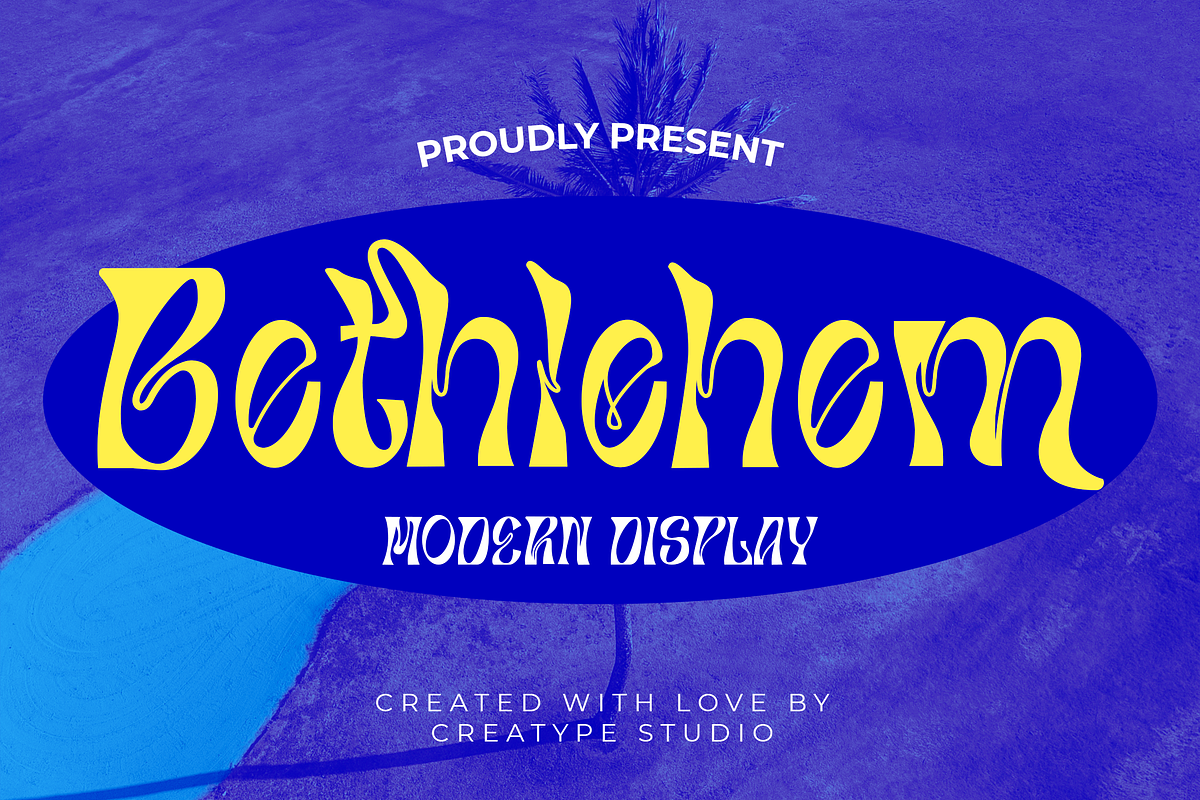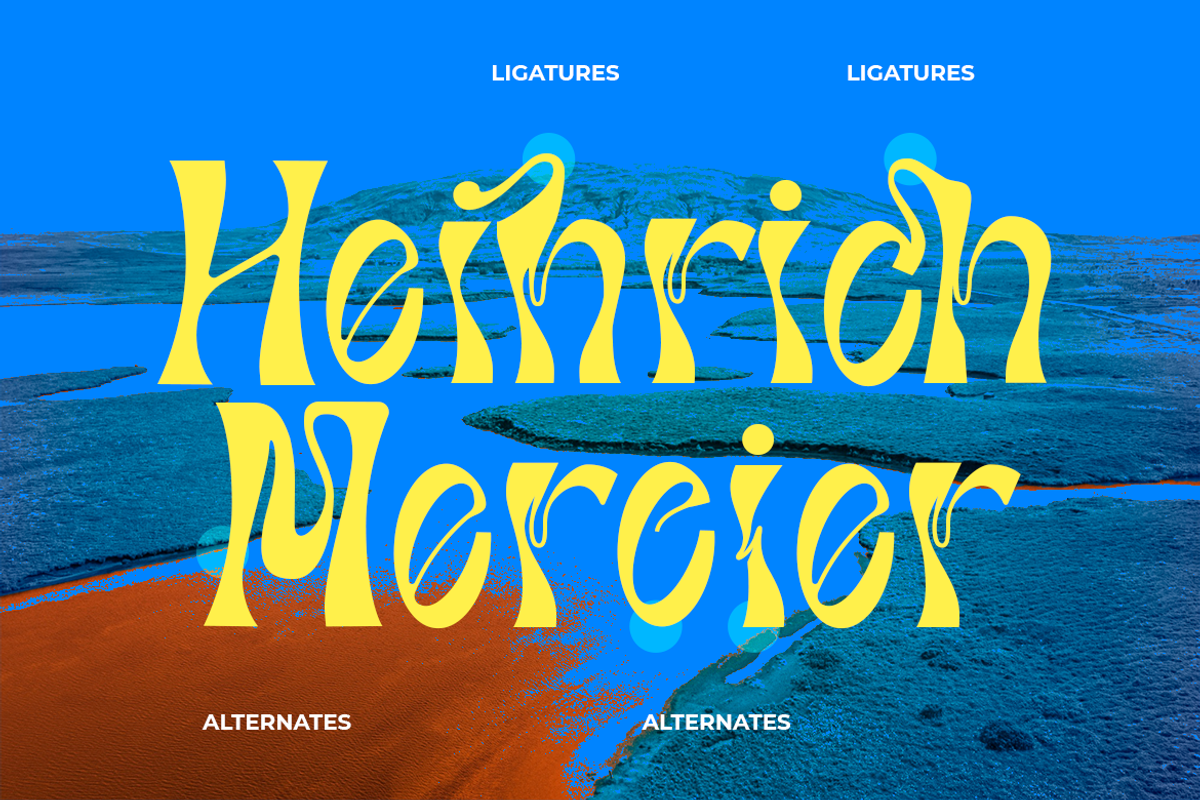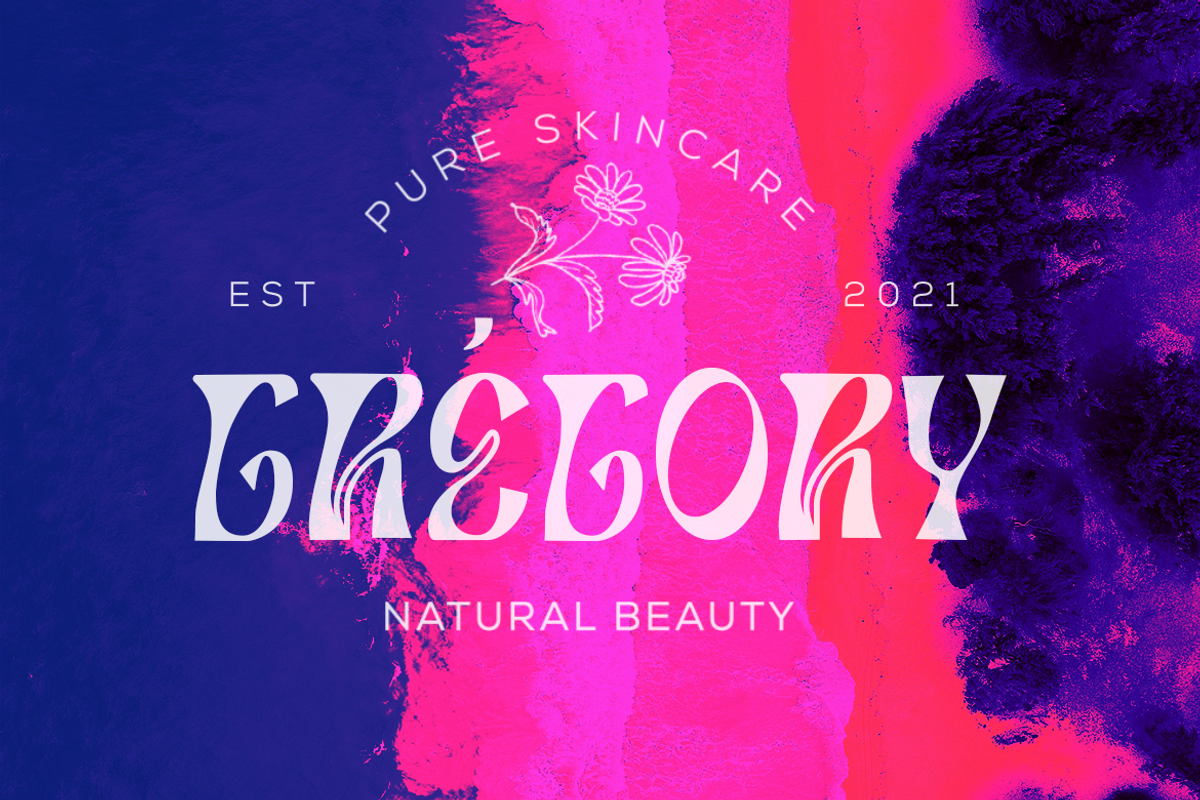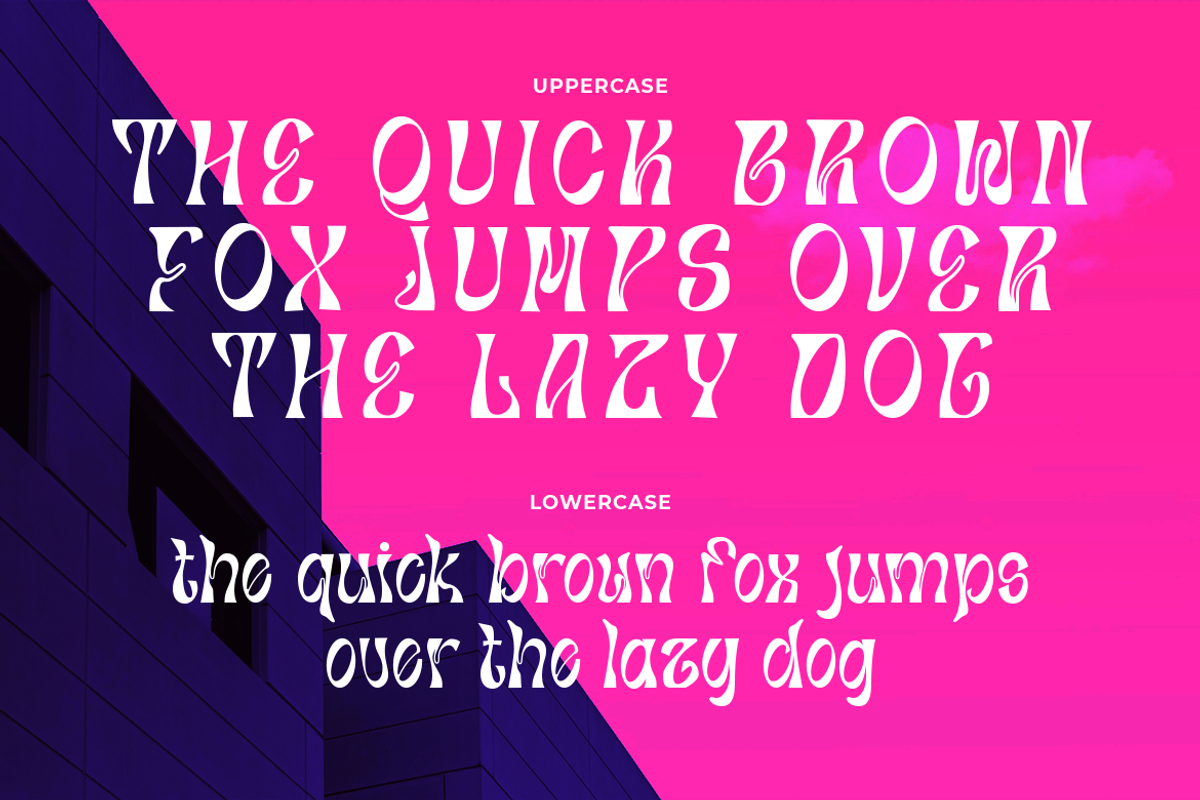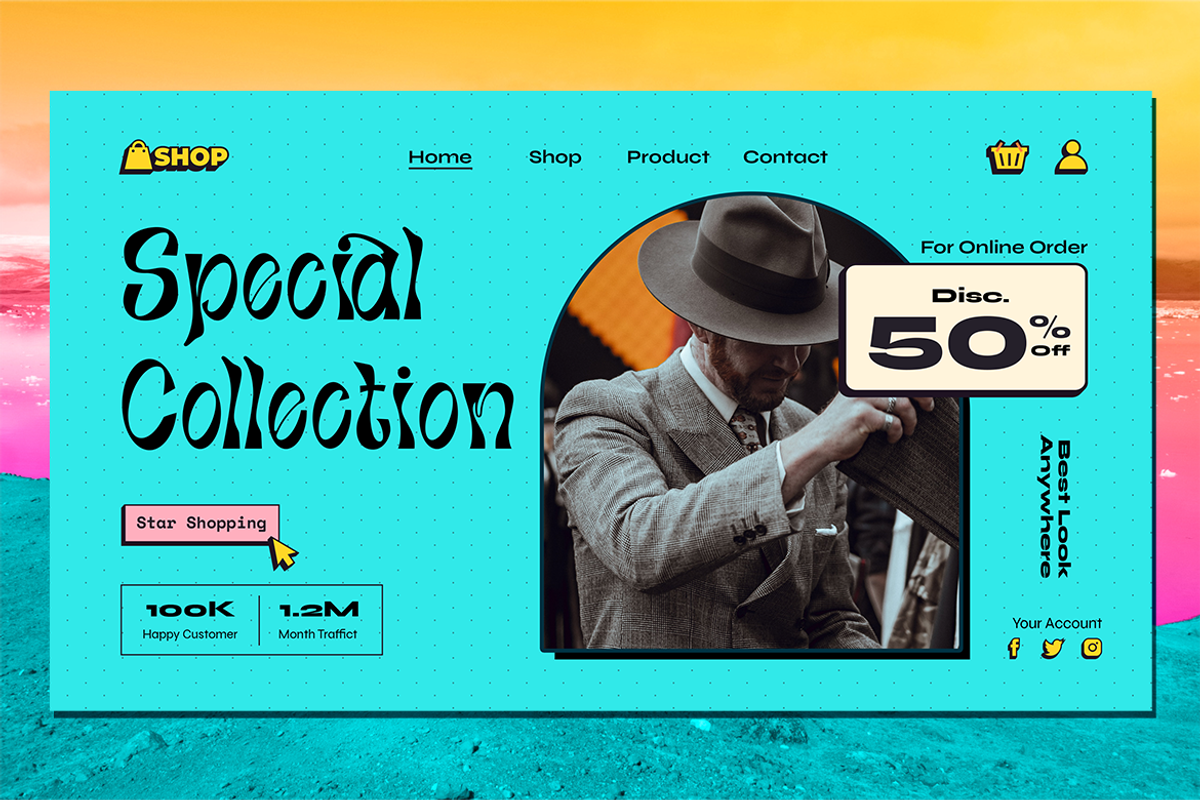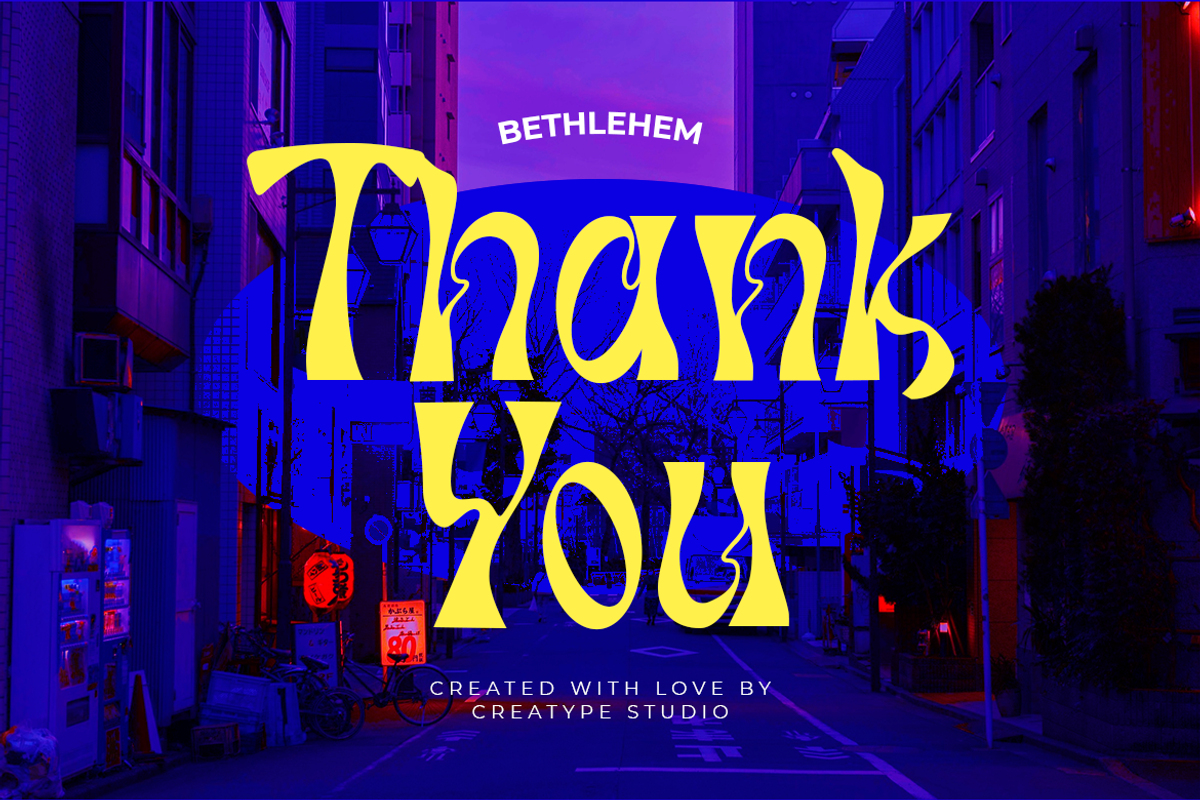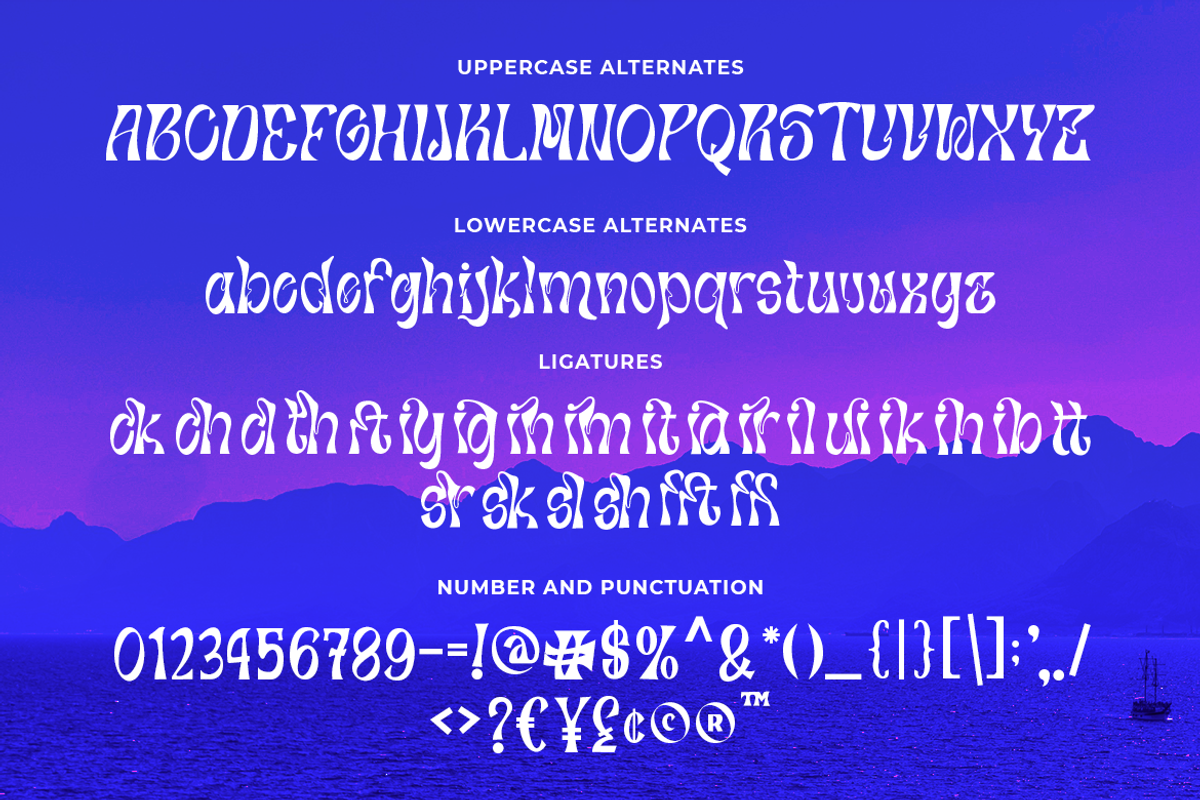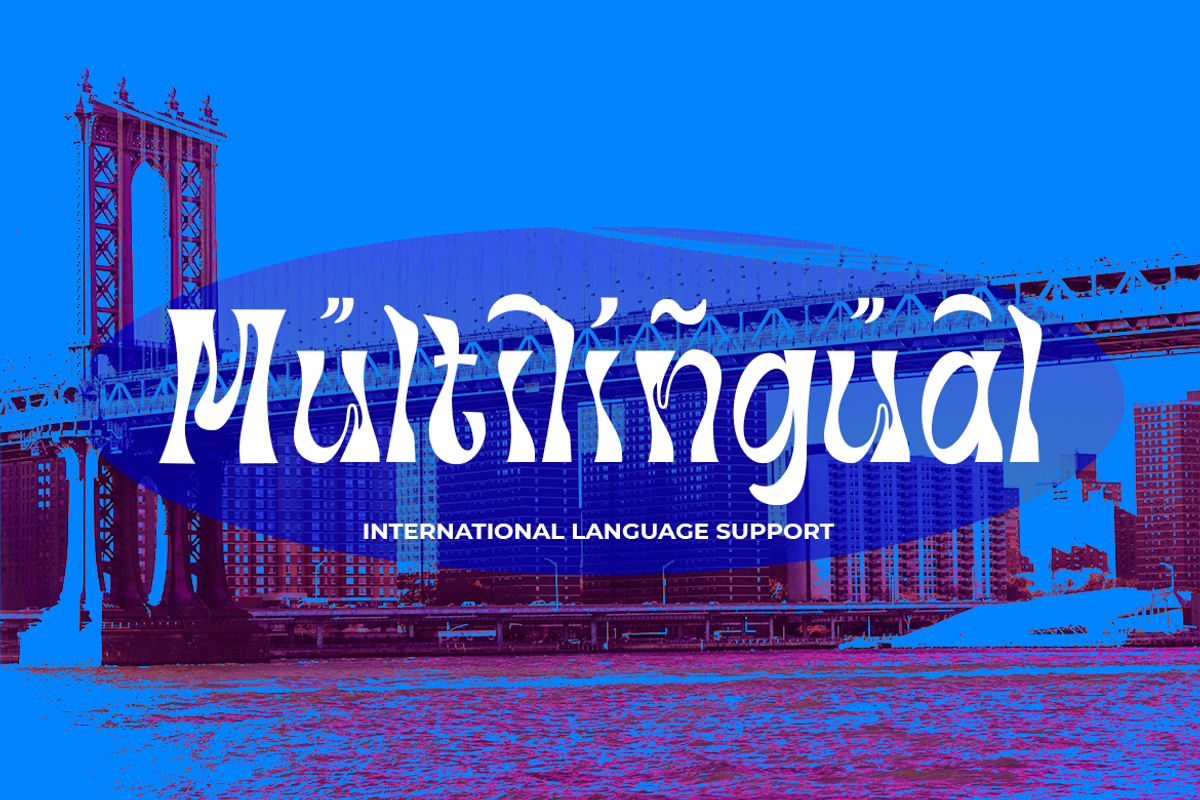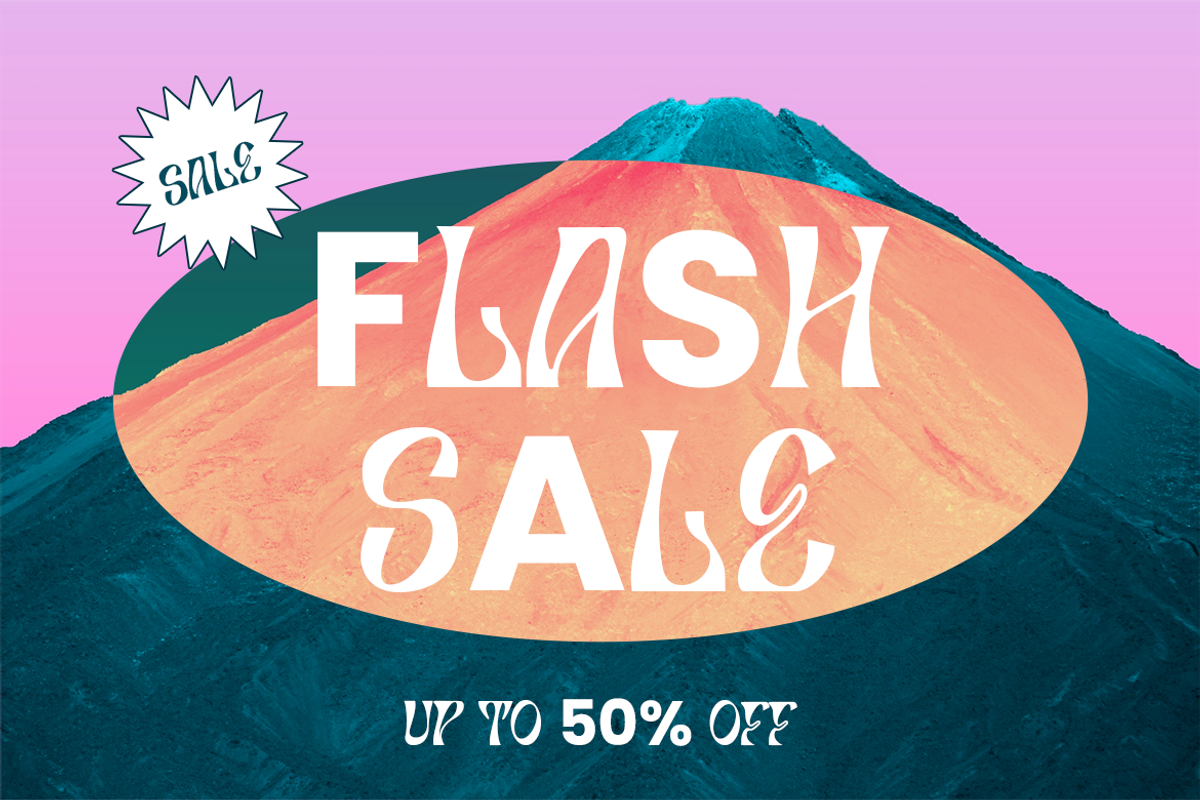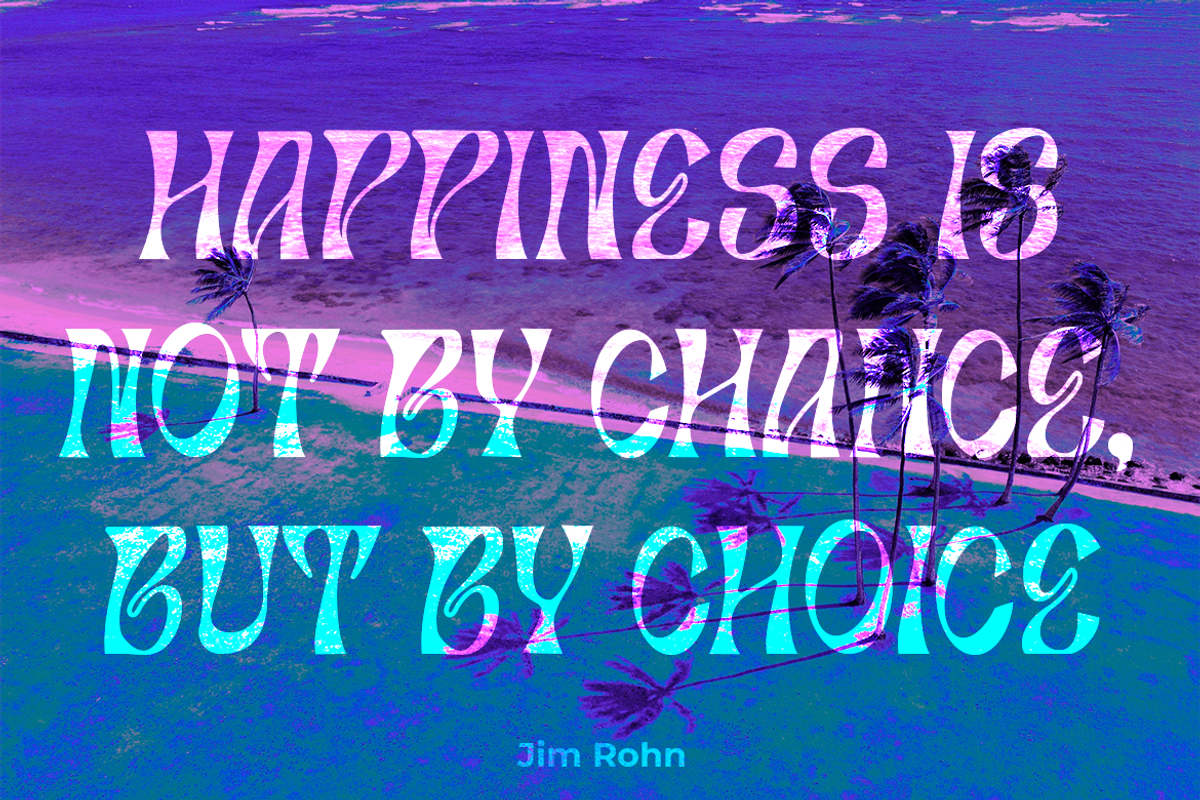
Bethlehem Modern Display
Bethlehem is the type of typeface that has a unique and attractive look. The glistening typeface design on Bethlehem will look perfect when combined with a solid character typeface.
Bethlehem is perfect for branding projects, logo, wedding designs, social media posts, advertisements, product packaging, product designs, label, photography, watermark, invitation, stationery and any projects that need handwriting taste.
- Ligature & Alternate